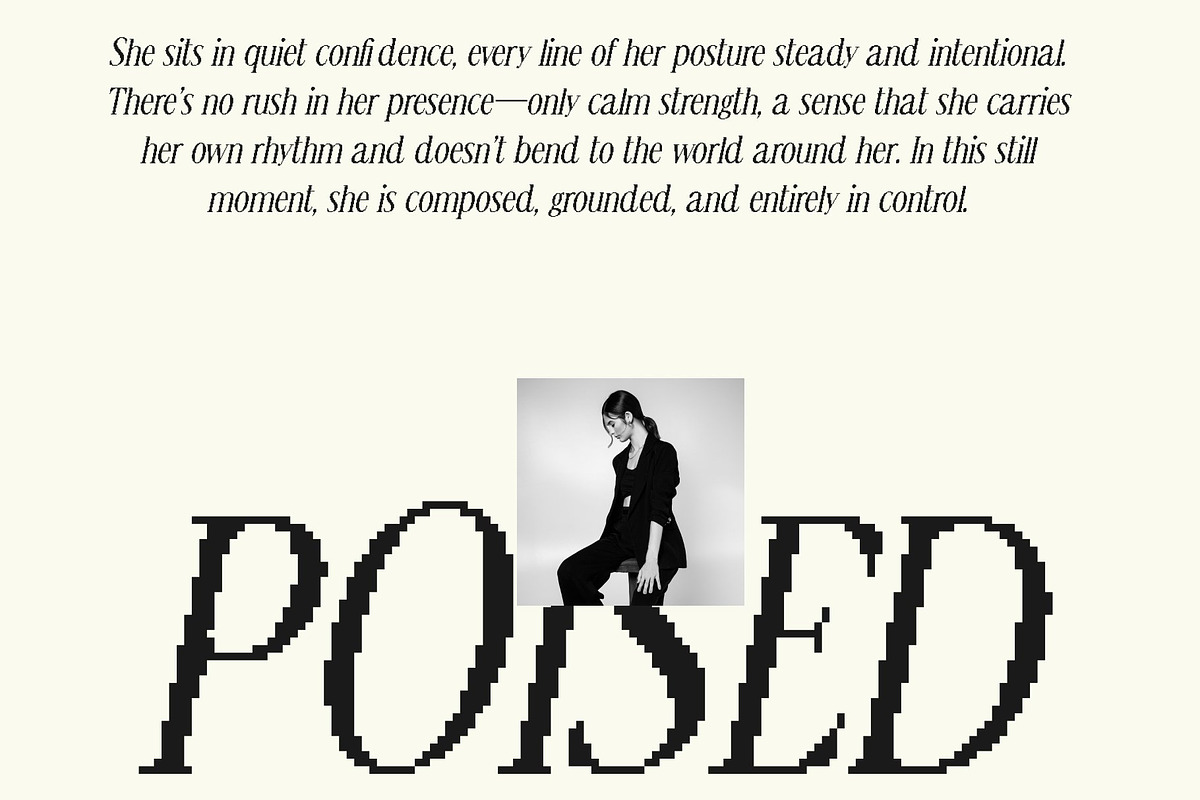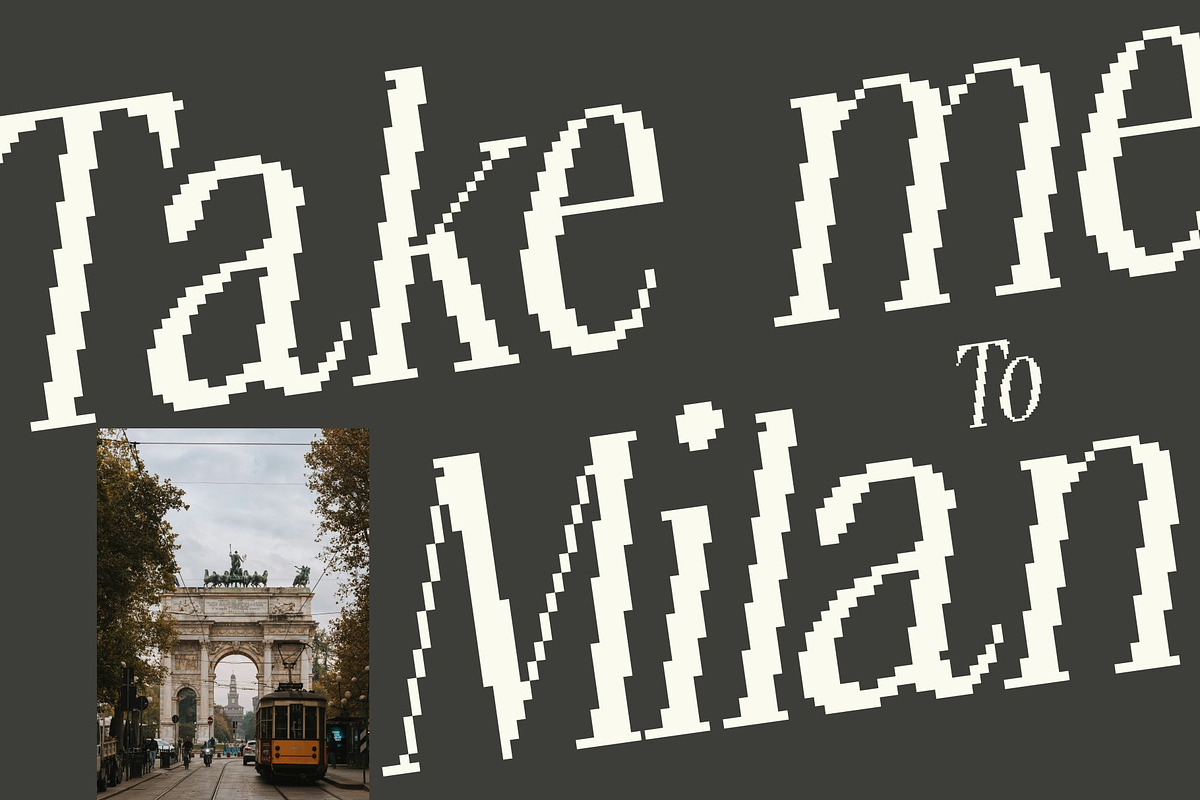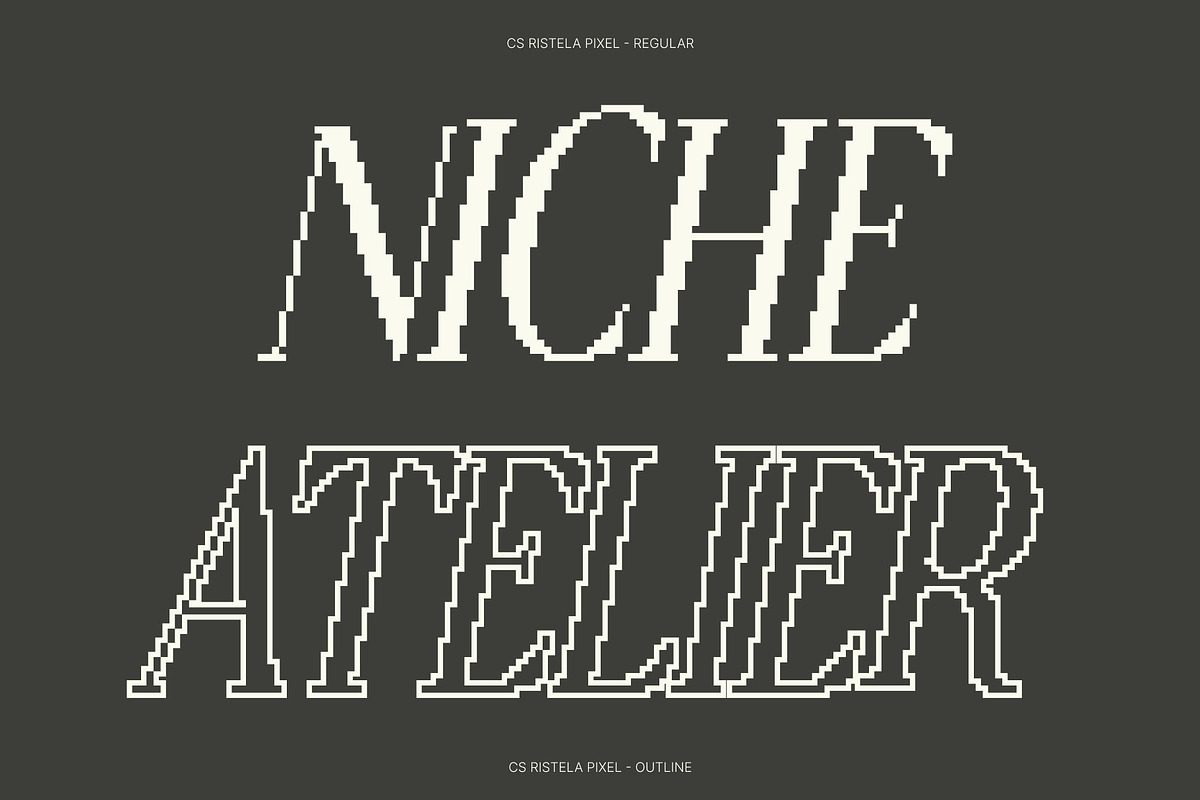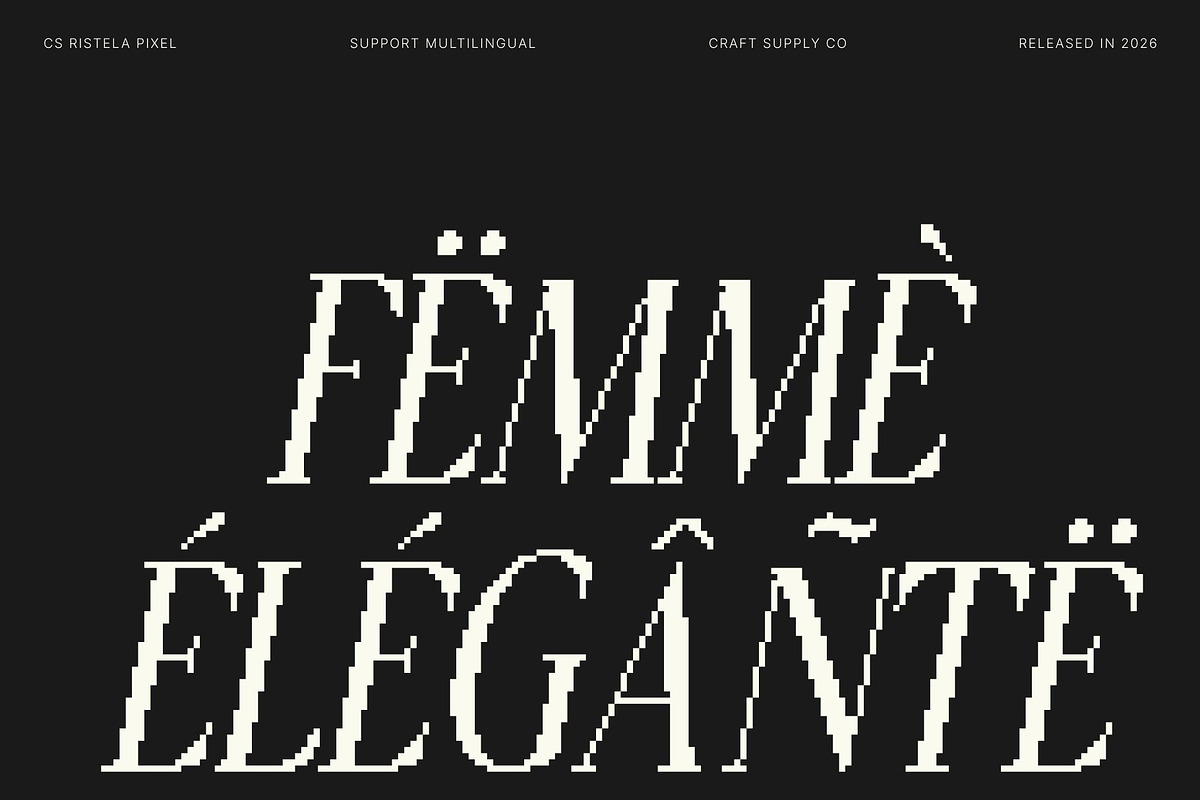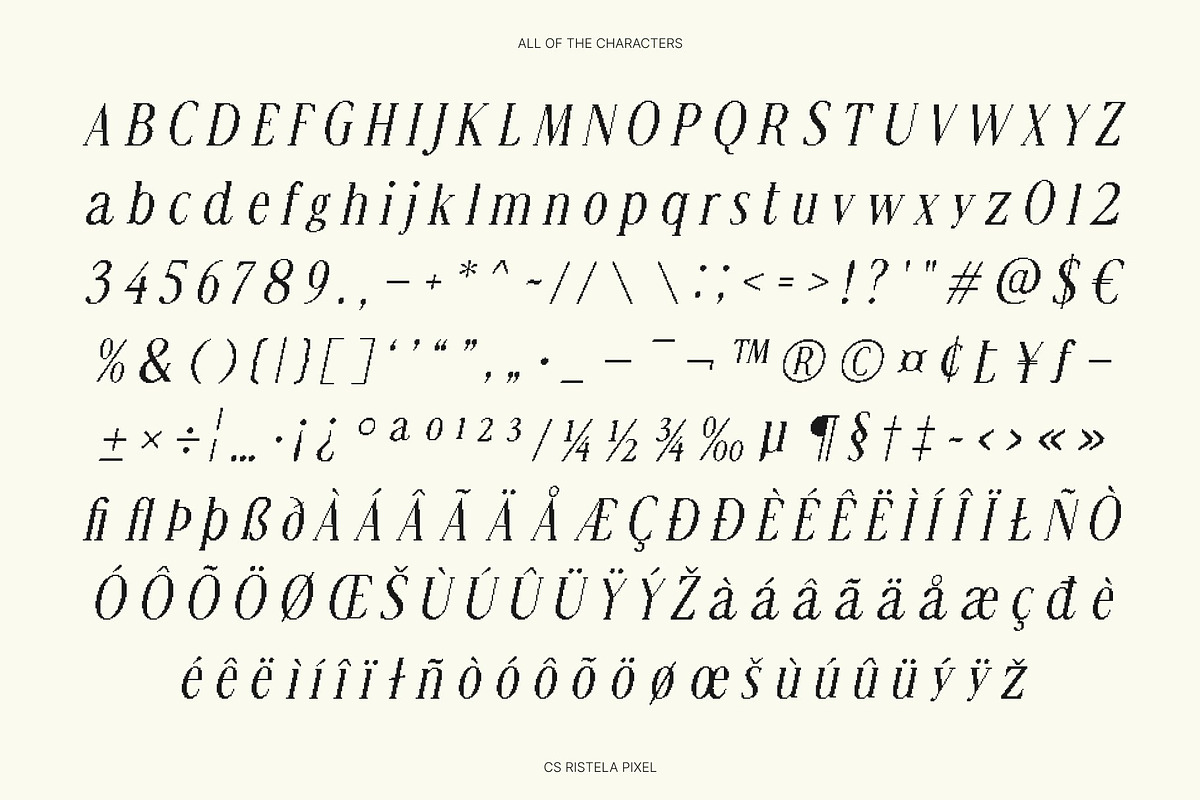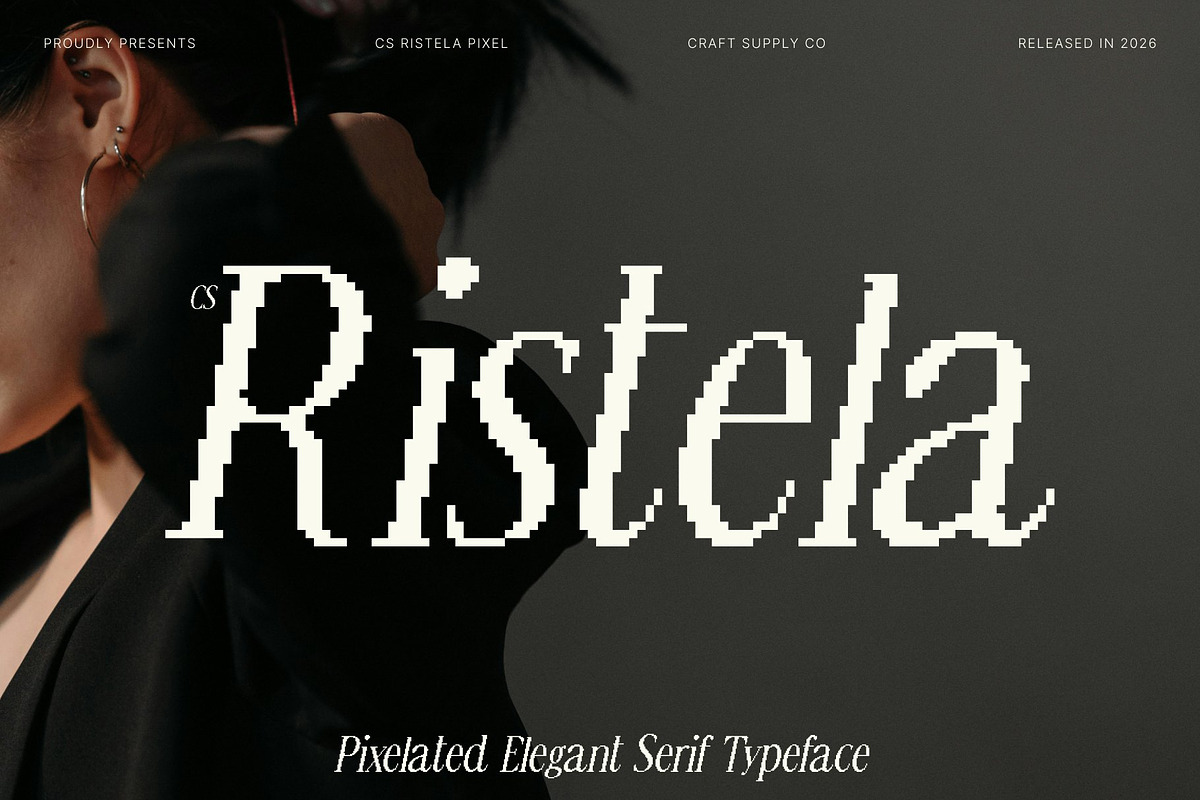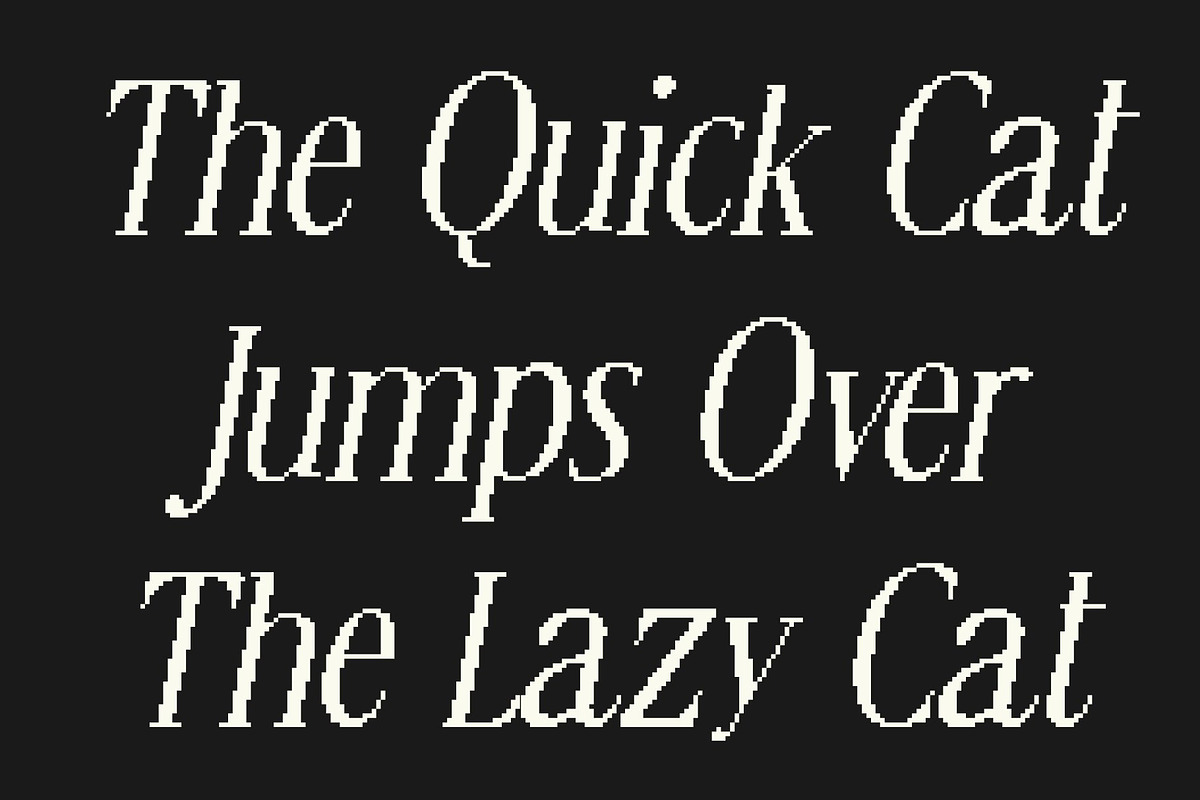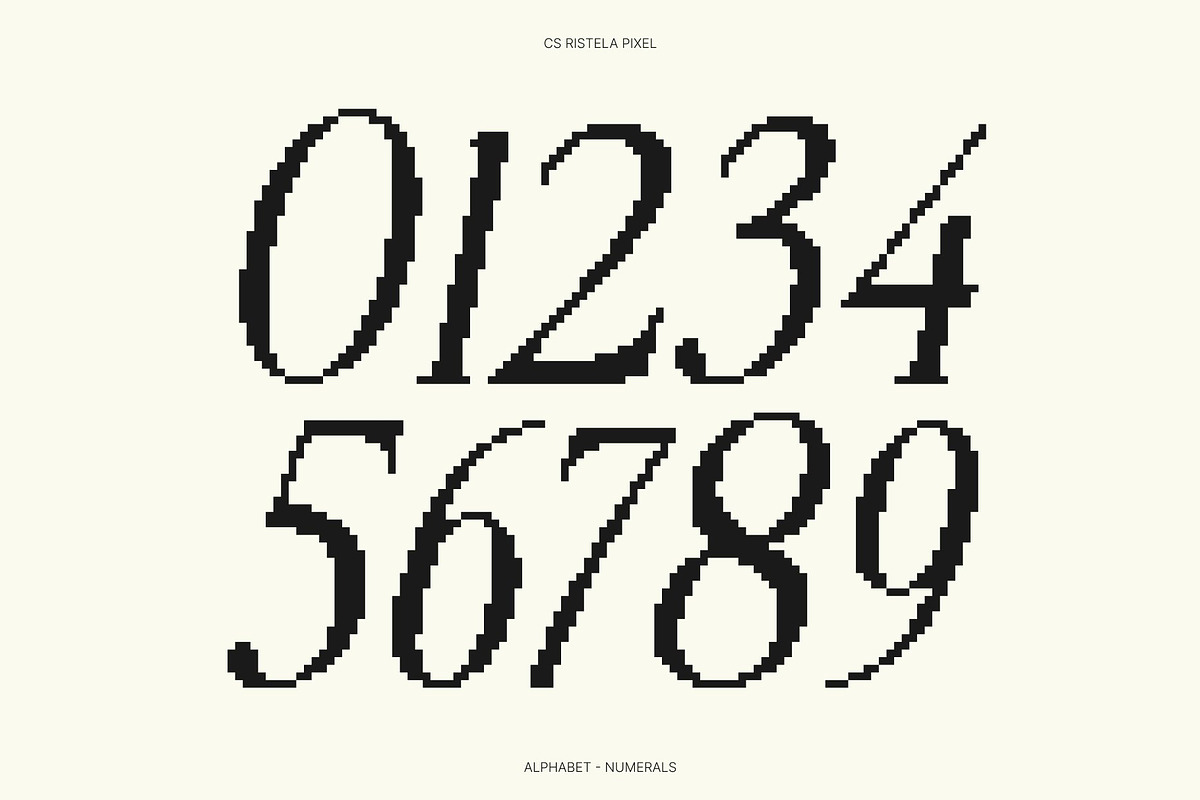
CS Ristela Pixel
CS Ristela Pixel – Timeless Elegance with Refined Pixel Proportions
Classic Serif Elegance Reimagined in Pixel Style This is an elegant serif font that blends refined curves and slightly condensed proportions with a distinctive pixel-inspired construction. Drawing inspiration from Renaissance-era letterforms, it preserves classical balance while introducing a digital edge. The result is a typeface that feels timeless yet visually refreshed for modern, screen-based design.
Graceful Structure with Digital Precision Its slender forms and controlled curves express intelligence and sophistication, while the pixel styling adds clarity and sharpness reminiscent of early digital typography and classic screen displays. Each character is carefully crafted to maintain elegance while gaining a subtle retro-tech character, making the font both refined and visually striking.
Perfect for Editorial, Branding, and Digital Heritage Designs This font excels in editorial layouts, book designs, luxury branding, packaging, and digital projects that seek a blend of tradition and technology. Its strong readability ensures it performs beautifully in both print and digital environments, while the pixel detail adds a unique visual identity ideal for modern reinterpretations of classic themes.
Where Tradition Meets Digital Modernity This font represents a harmony between historical typography and contemporary pixel aesthetics. Its elegant rhythm, refined details, and digital influence make a versatile choice for designers who want to communicate timeless beauty, high-end professionalism, and a subtle nostalgic connection to old technology and early digital culture.